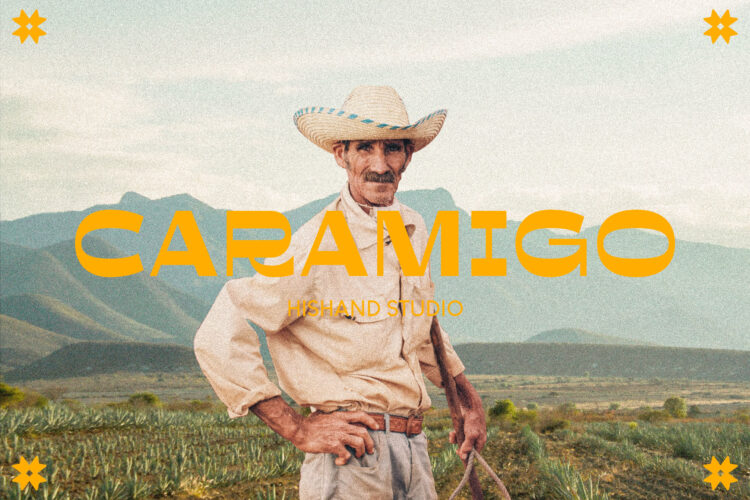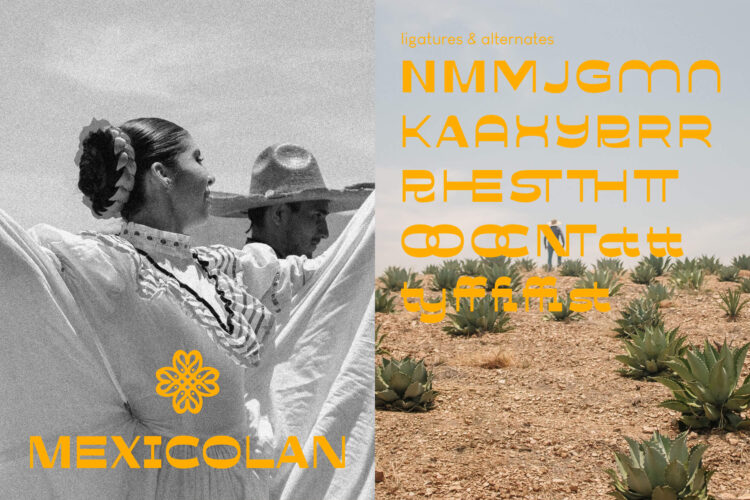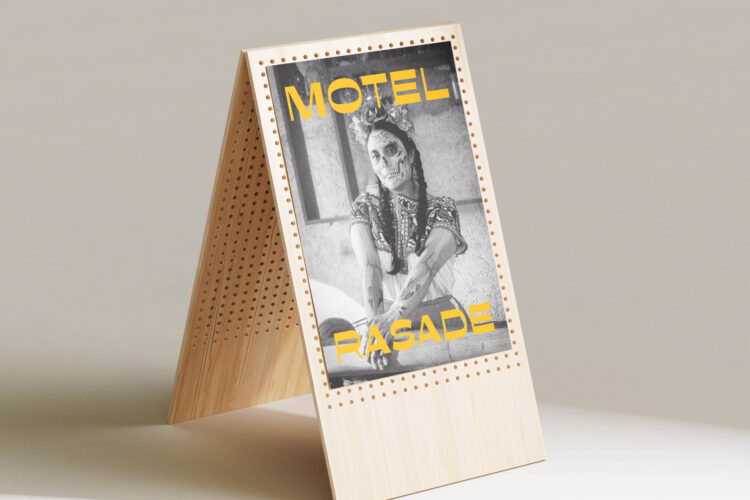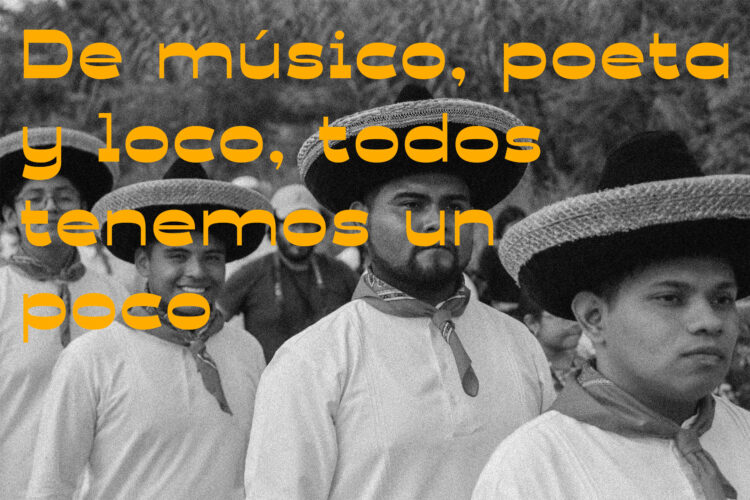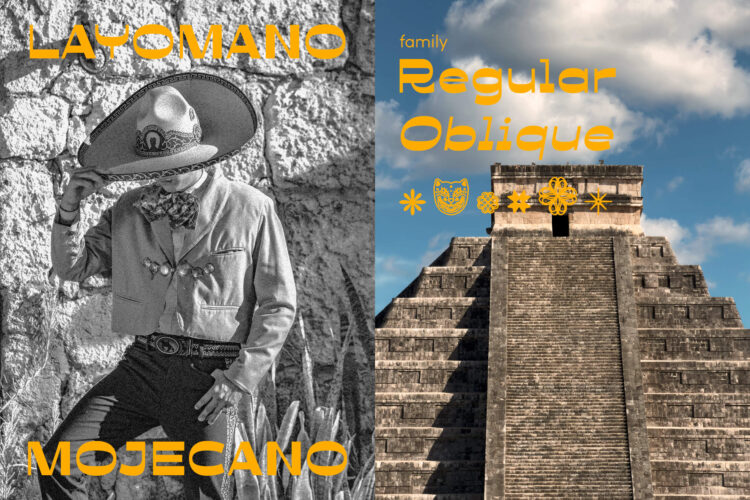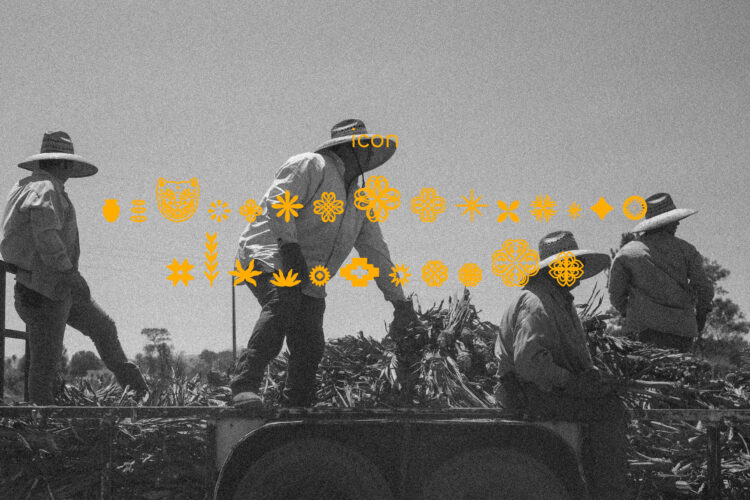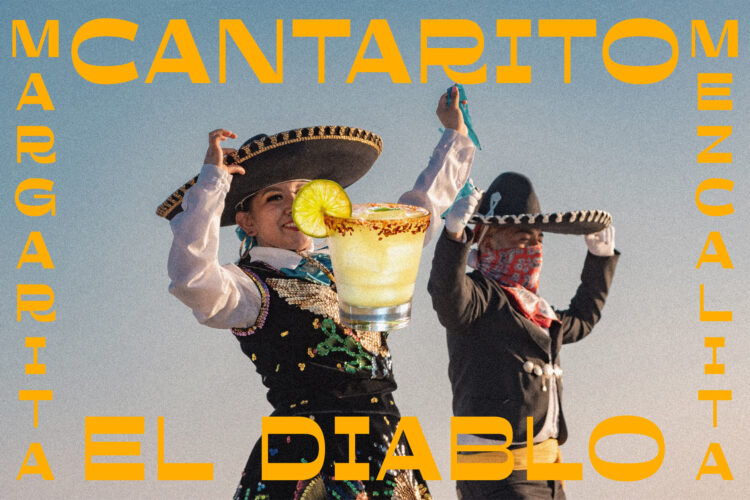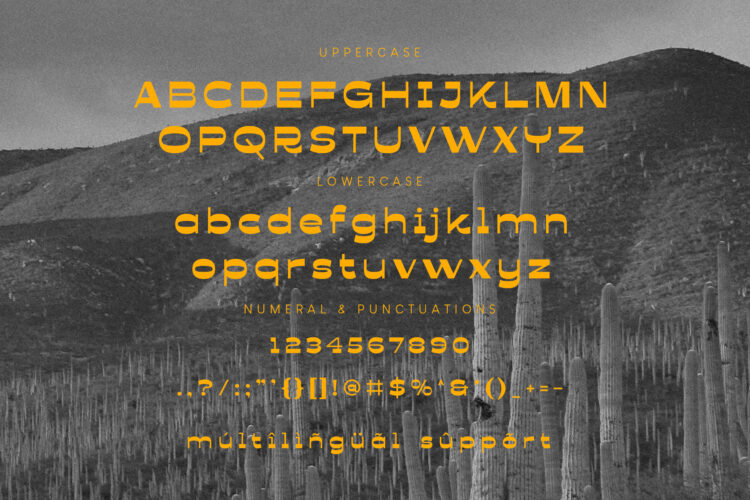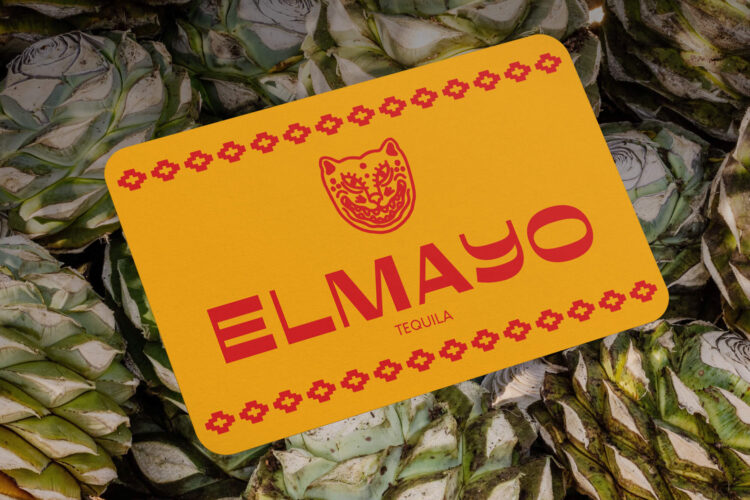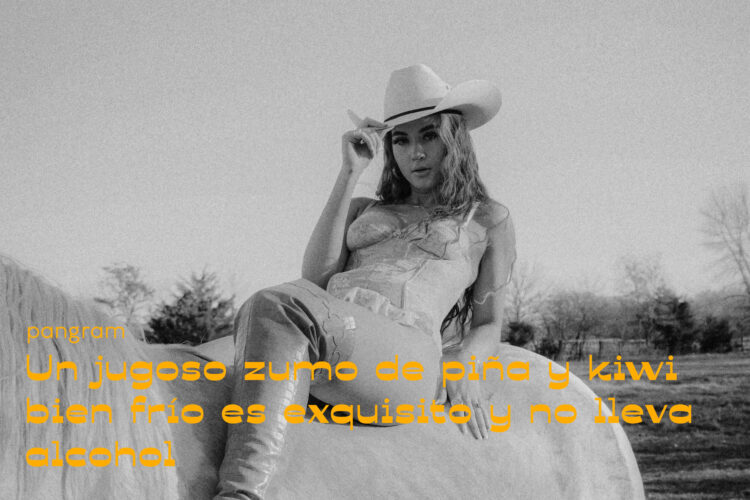
Caramigo display font is a sans serif that feels warm, relaxed, and full of personality. Inspired by Mexican culture, its friendly shapes bring to mind sun soaked streets, handmade signs, colorful markets, and slow afternoons with good company. The name hints at a companion, and that spirit shows in every letter: approachable, easy on the eye, and quietly confident.
The look is aesthetic and chill, the kind of typeface that makes a design feel calm before anyone reads a single word. Each letter carries a soft, laid back rhythm that invites people in, from a bold headline set large to short, punchy phrases. It sits comfortably beside warm color palettes, natural textures, and playful illustrations, making it easy to build a mood that feels sunny and inviting.
Designed for creative work with a relaxed spirit, Caramigo works beautifully for branding, posters, packaging, menus, social media graphics, and editorial headlines. It is a natural fit for cafes, restaurants, lifestyle brands, travel projects, event posters, and any design that wants to feel welcoming. Its clean structure keeps things modern, while a subtle cultural character gives every layout a touch of soul.
To make your designs even more expressive, Caramigo includes 26 icons that pair naturally with the letterforms. Use them as accents, badges, stickers, or playful details to add extra flavor to your work. Because the icons share the same friendly personality as the letters, your layouts feel cohesive and finished without hunting for extra graphics.
From a full brand identity to a finishing touch on a single poster, Caramigo Display Font brings an easygoing, welcoming vibe to your work. It adds personality without trying too hard, helping your designs feel relaxed, human, and full of warmth. Simple to pair, easy to love, and ready for whatever you create next, Caramigo is a font you will keep coming back to, project after project.